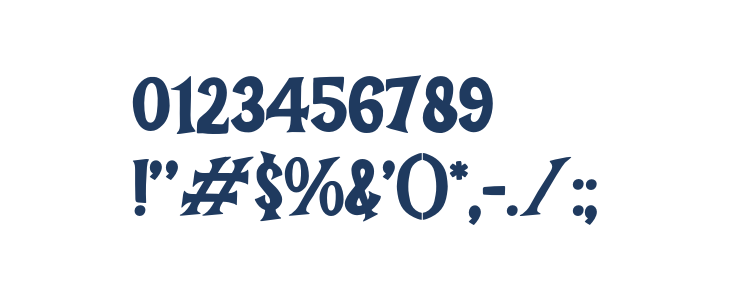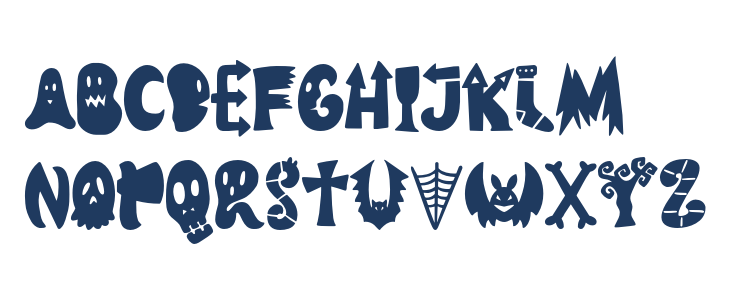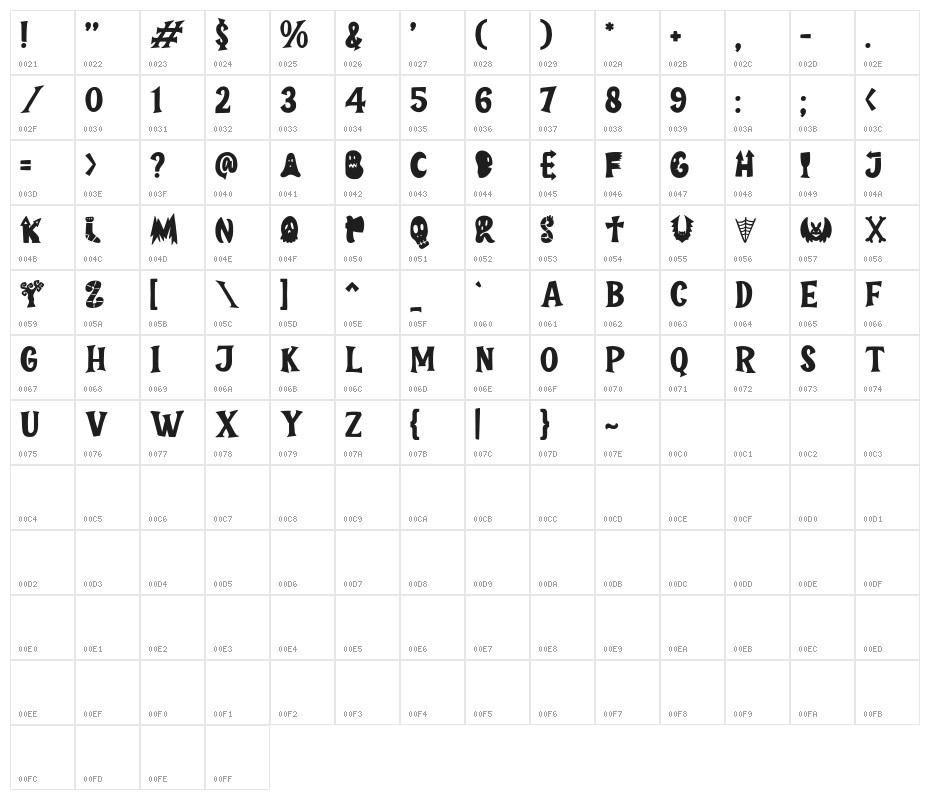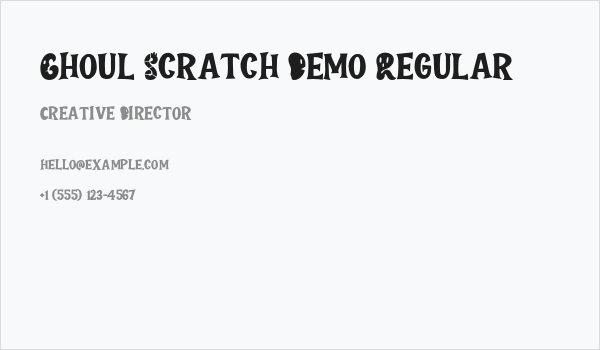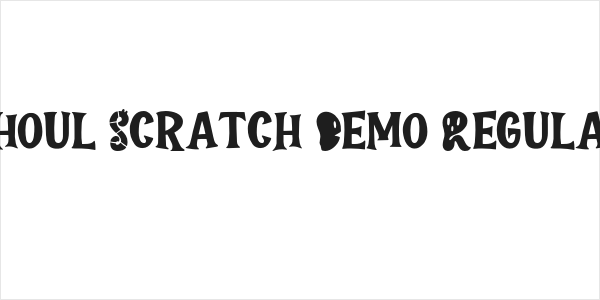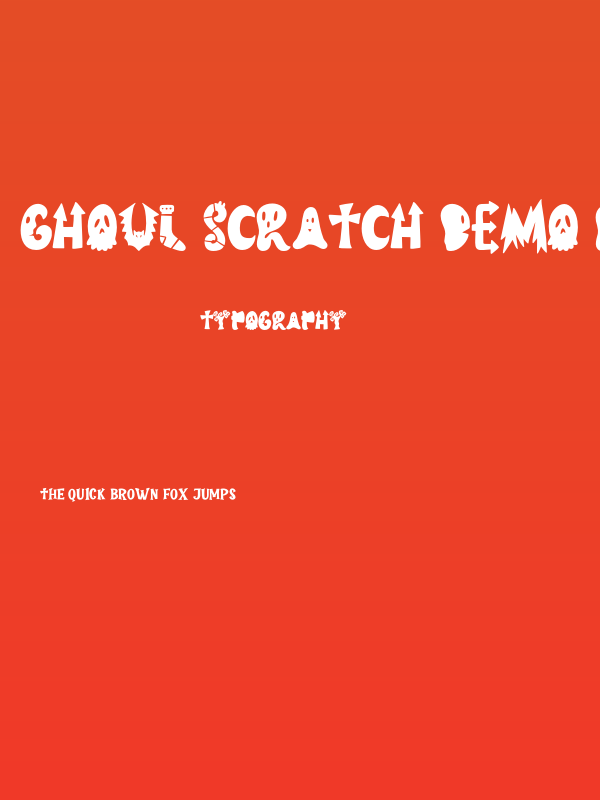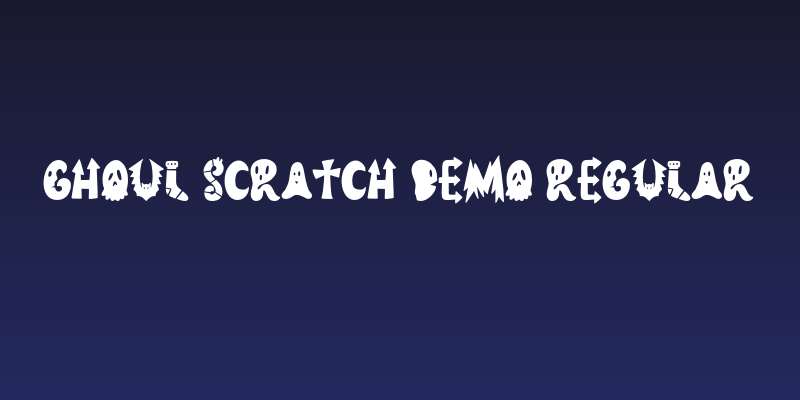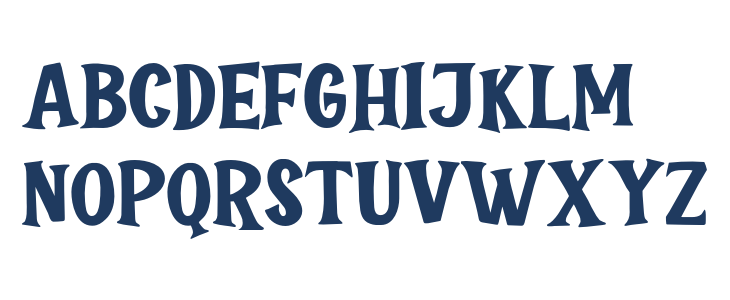
Ghoul Scratch Demo Regular Font
Ghoul Scratch Demo Regular Description
A playful, spooky display font with irregular, jagged letterforms and decorative elements resembling monsters, claws, and cobwebs. The uppercase set features highly stylized, themed characters, while the lowercase and numerals are bold and slightly uneven, maintaining a hand-drawn, horror-inspired look.
| Overall Style | Decorative, Spooky, Playful |
| Use Case | Headlines, Posters, Logos, Event Titles |
| Proposed Projects | Halloween posters, party invitations, haunted house signage, themed event branding, children's spooky storybooks. |